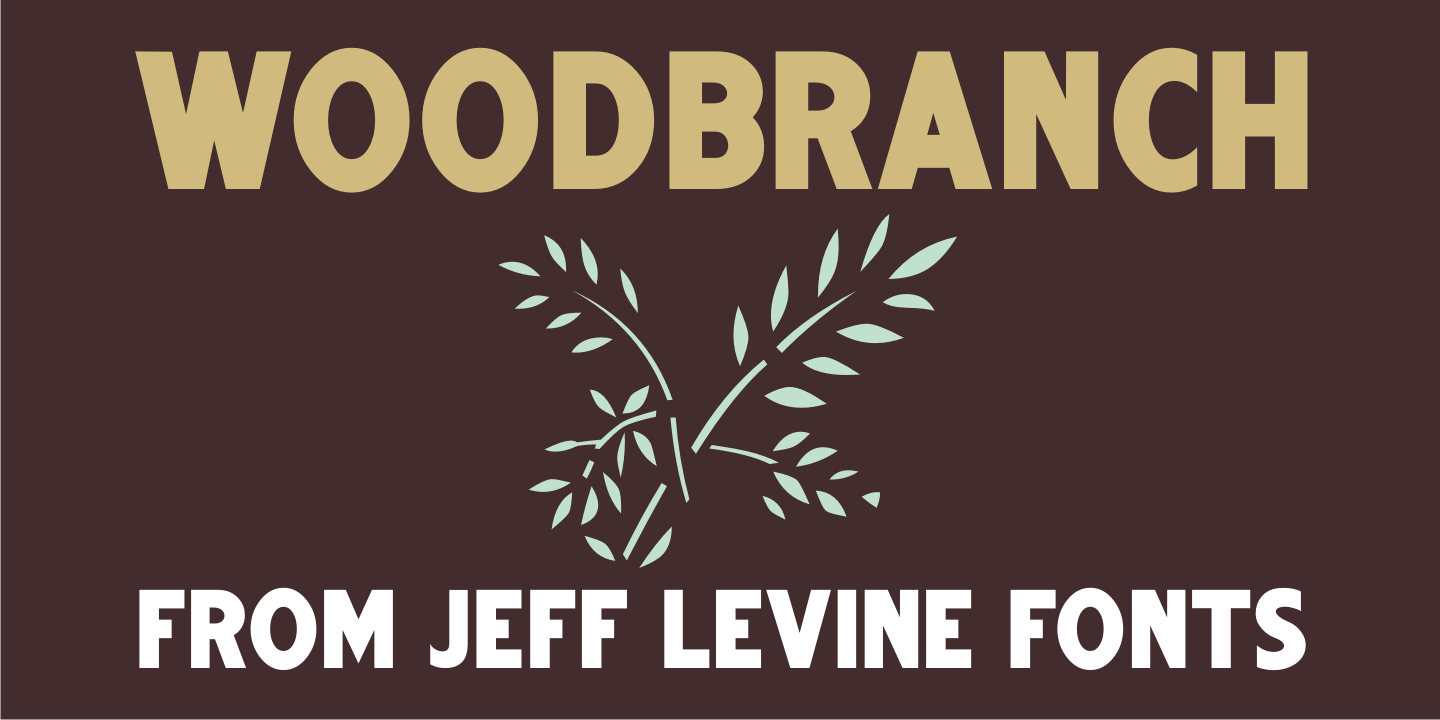
Woodbranch
Woodbranch JNL is a solid version of the 2013 font release Woodlawn JNL. The design was originally based on examples of an outline (open face) wood type.
This interpretation takes on newer, stronger characteristics as a bold typeface when the 'inner letters' of the original alphabet were removed, yet the imperfection of the wood type pieces are still maintained..